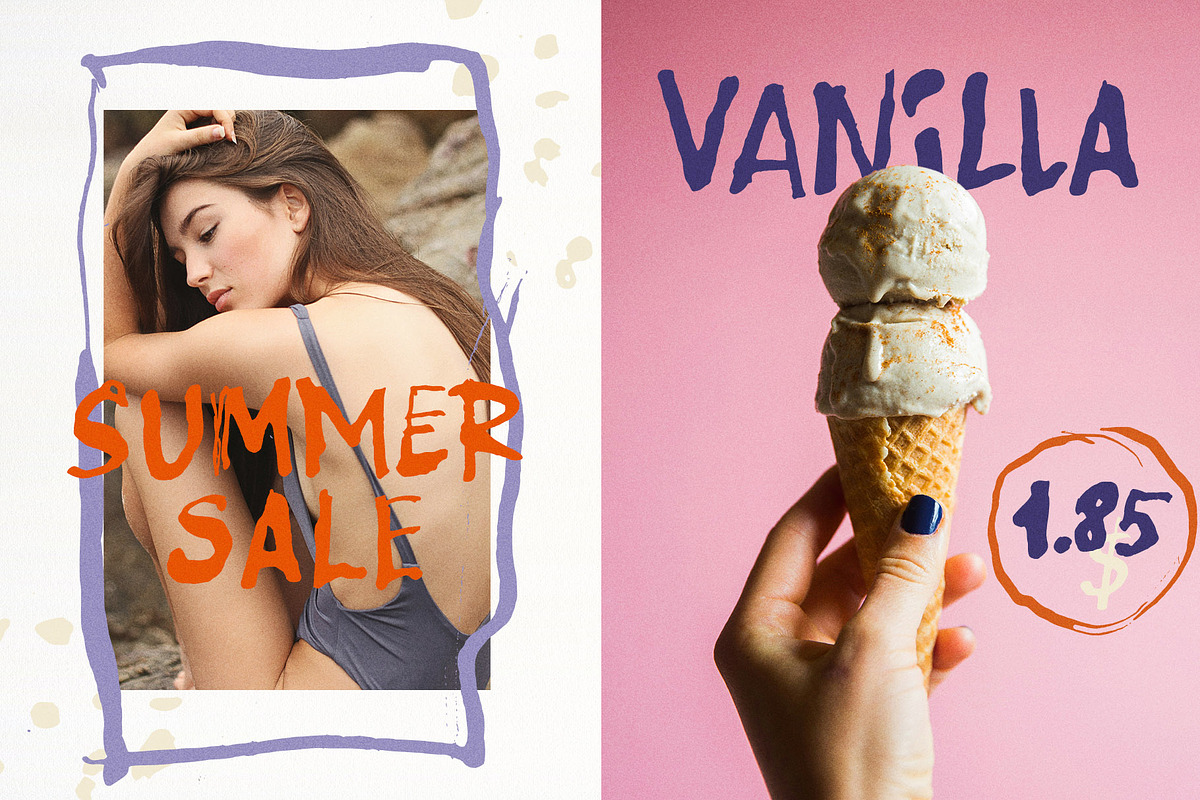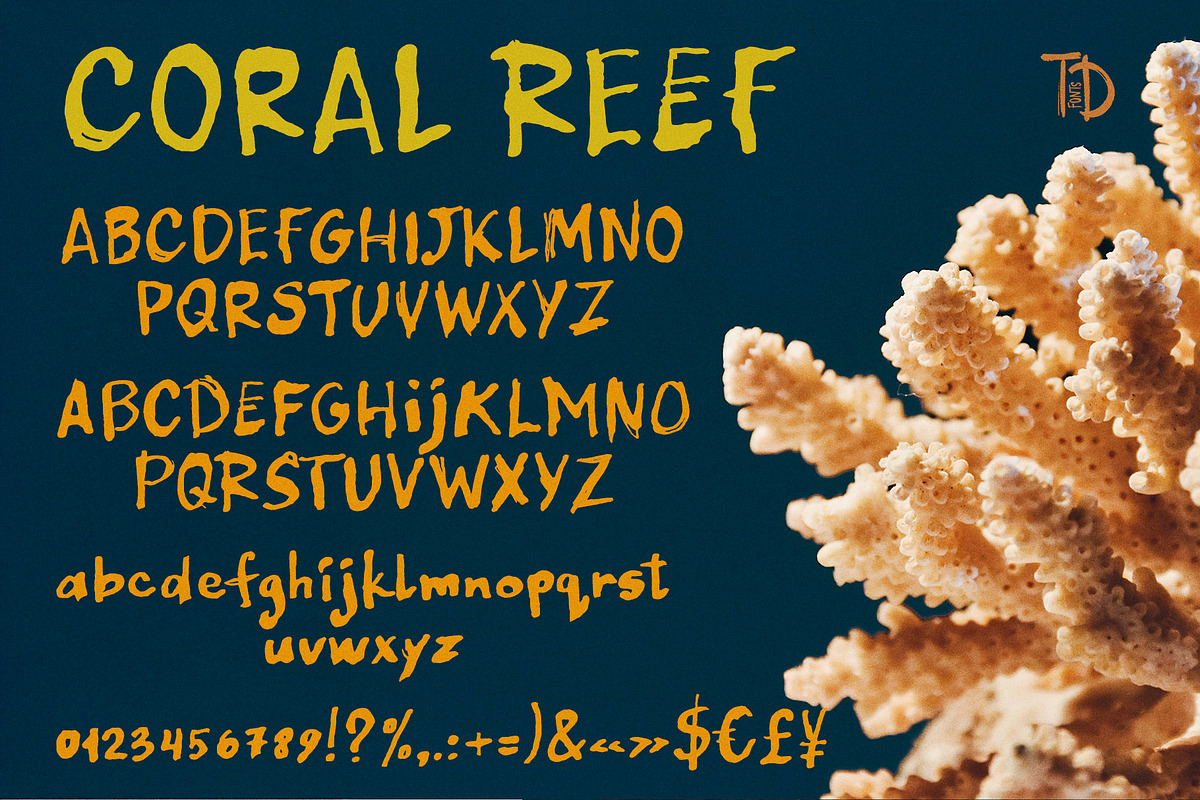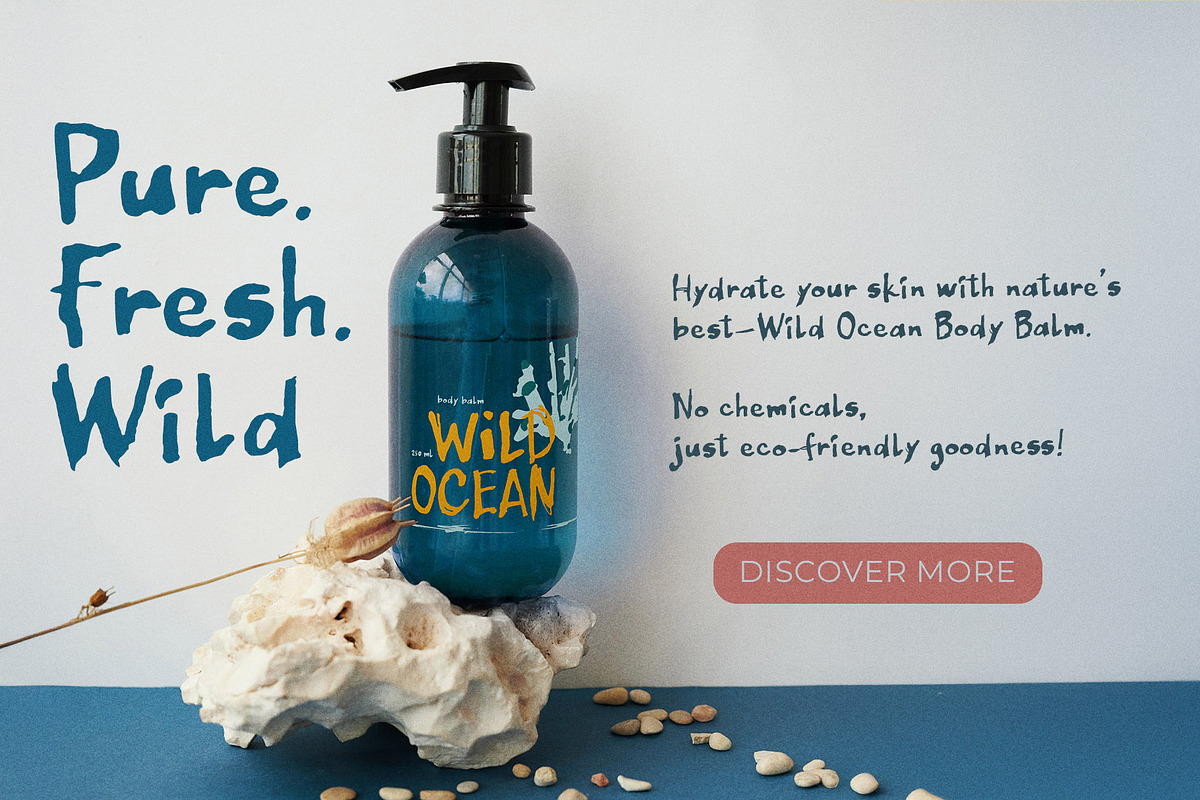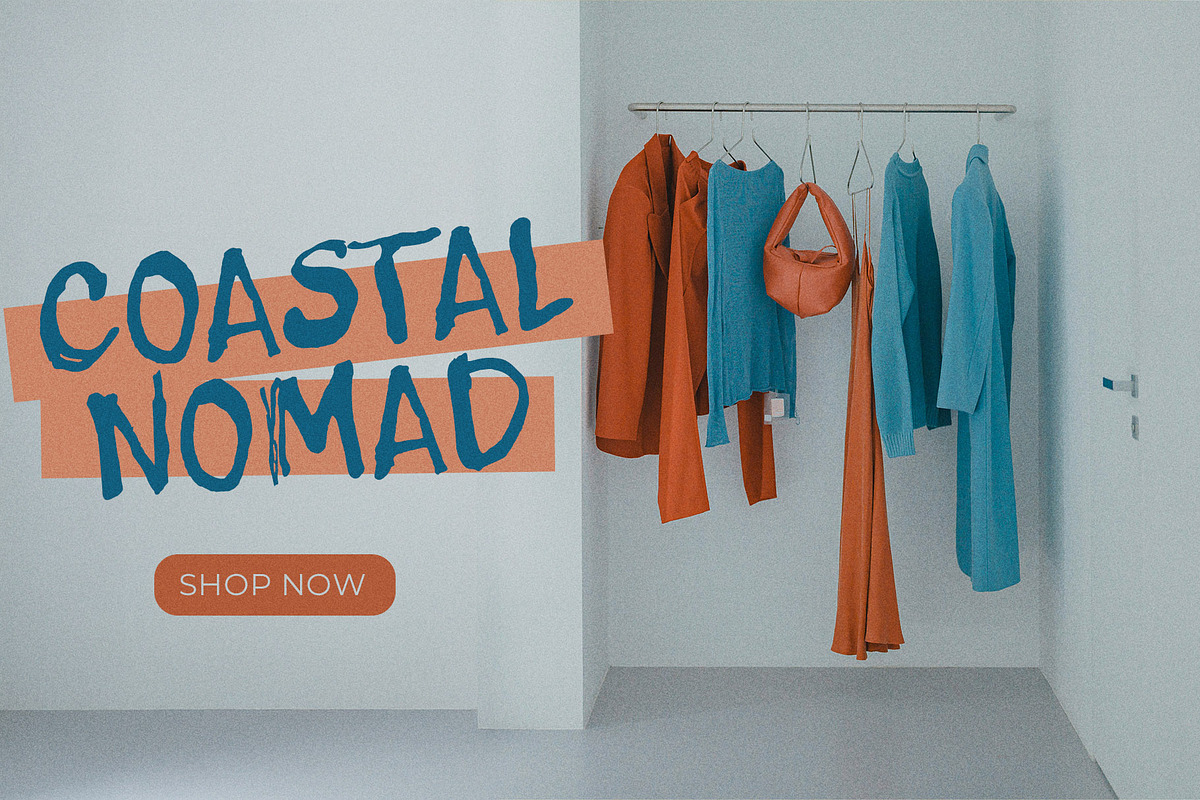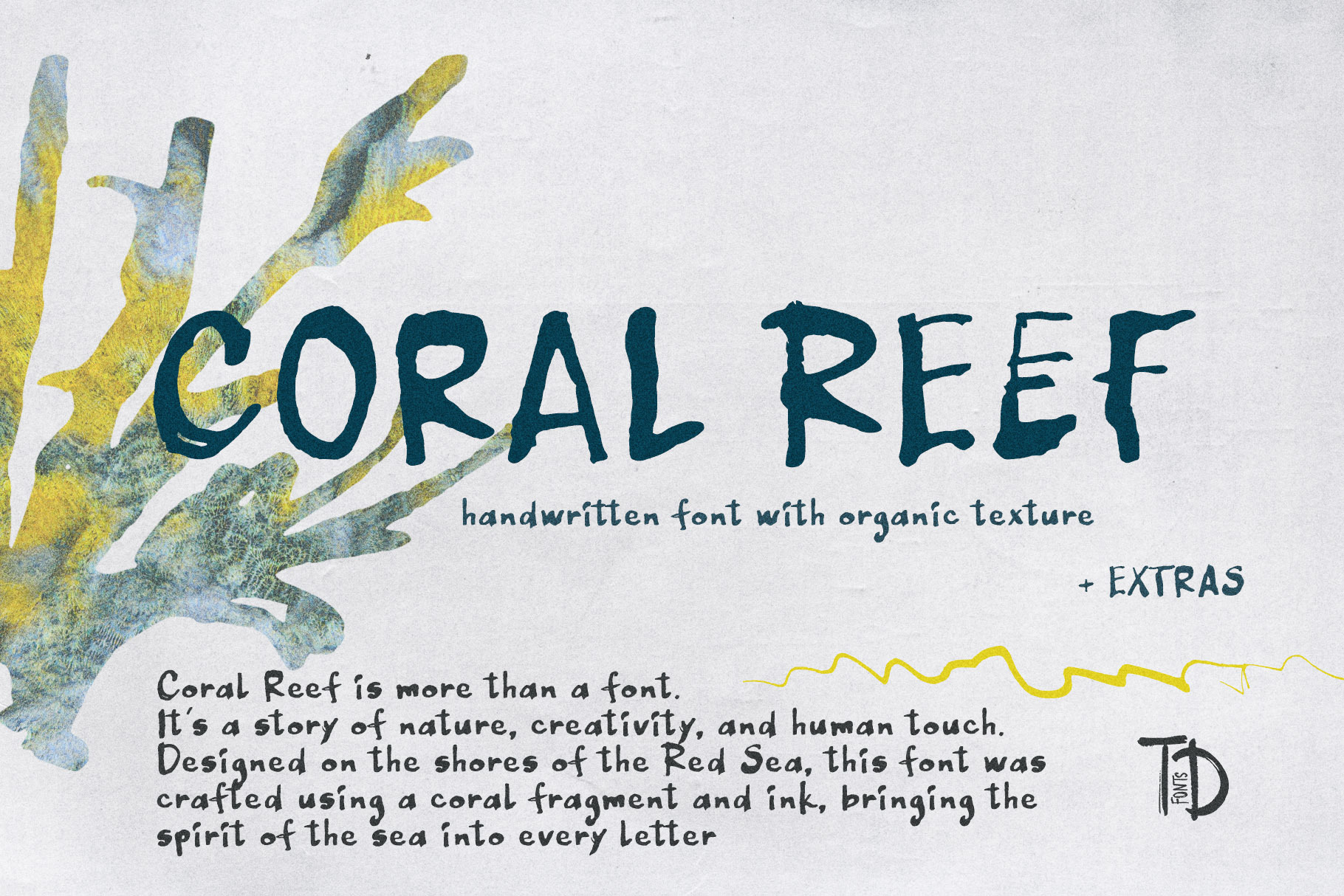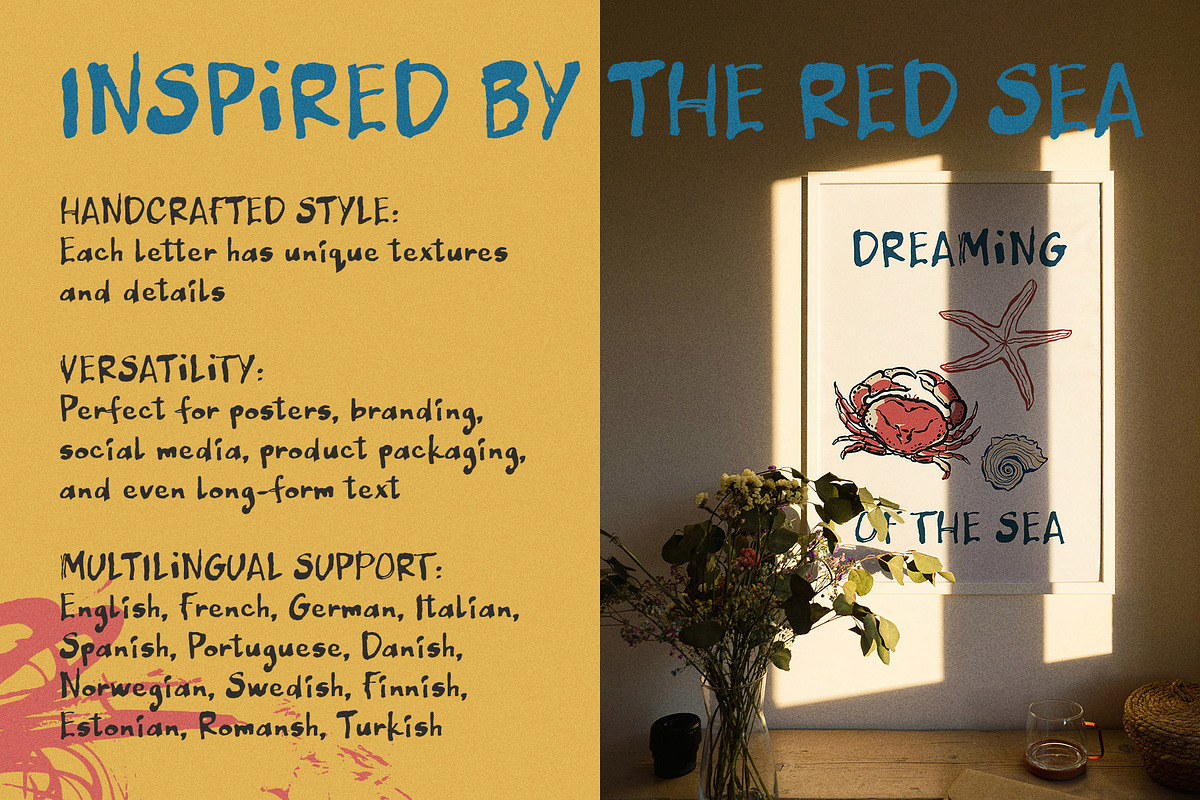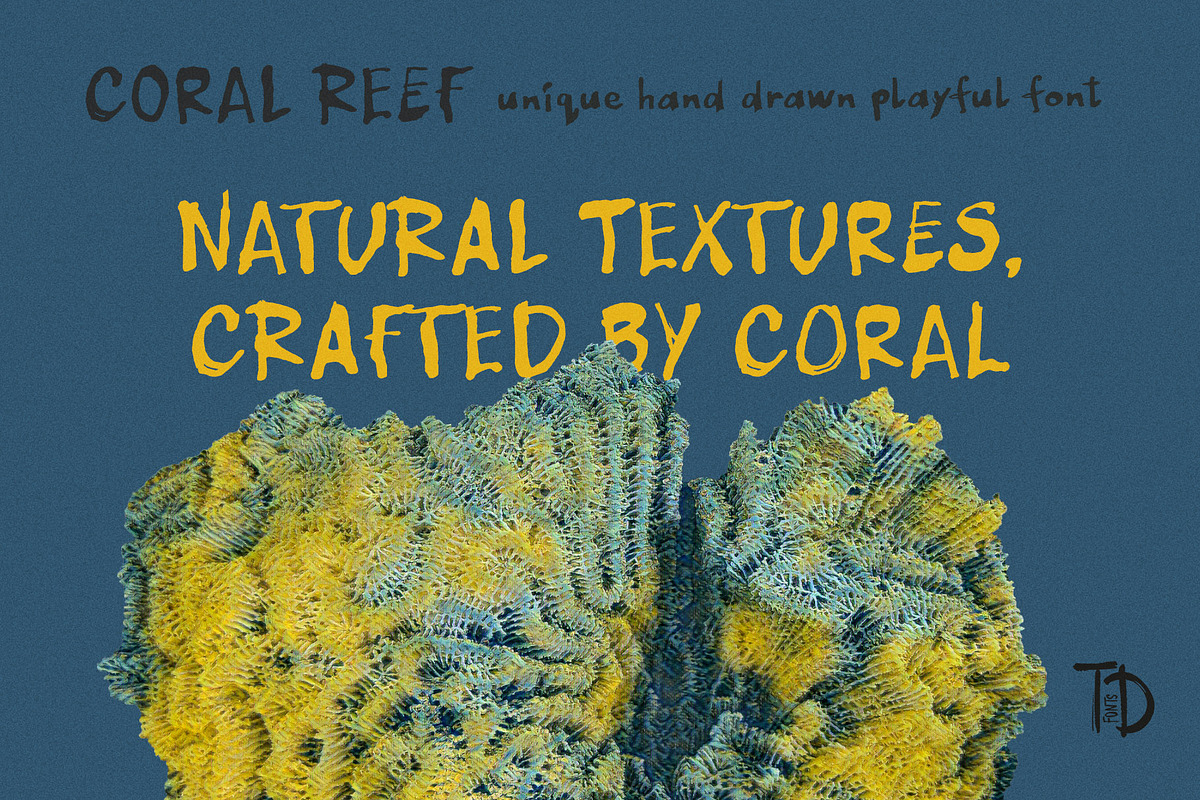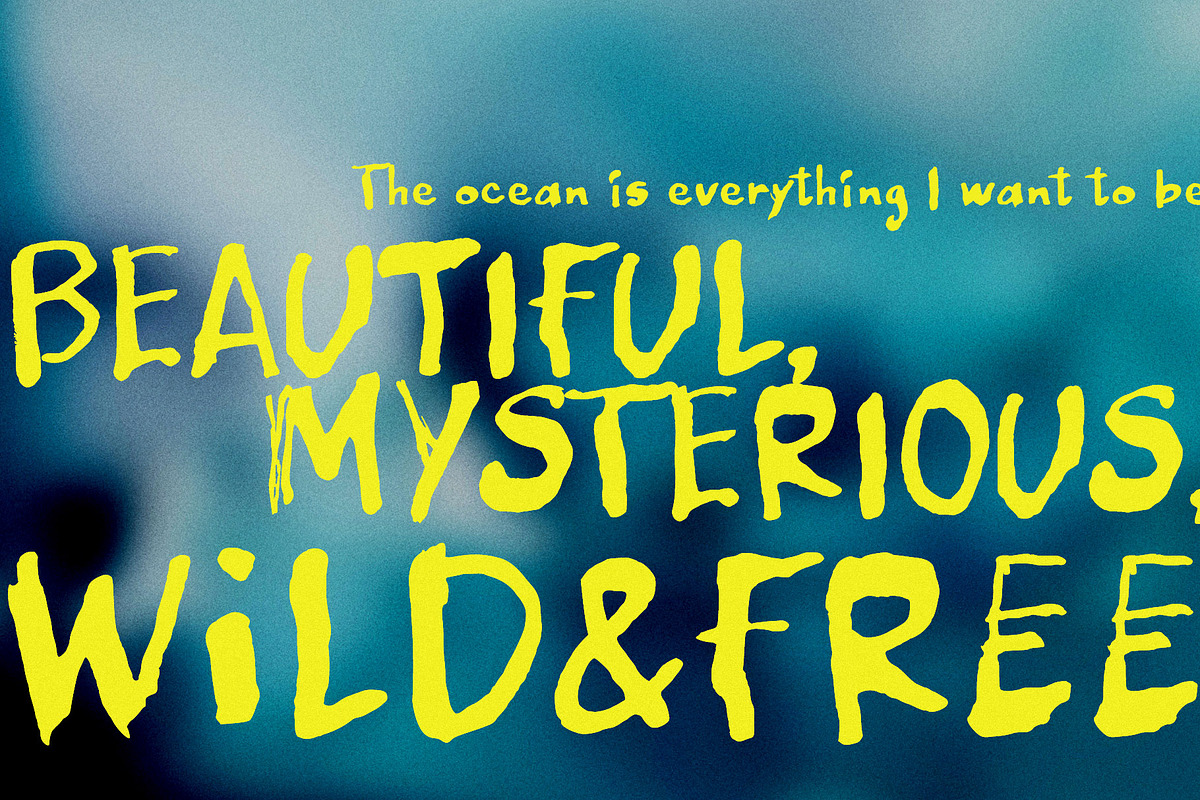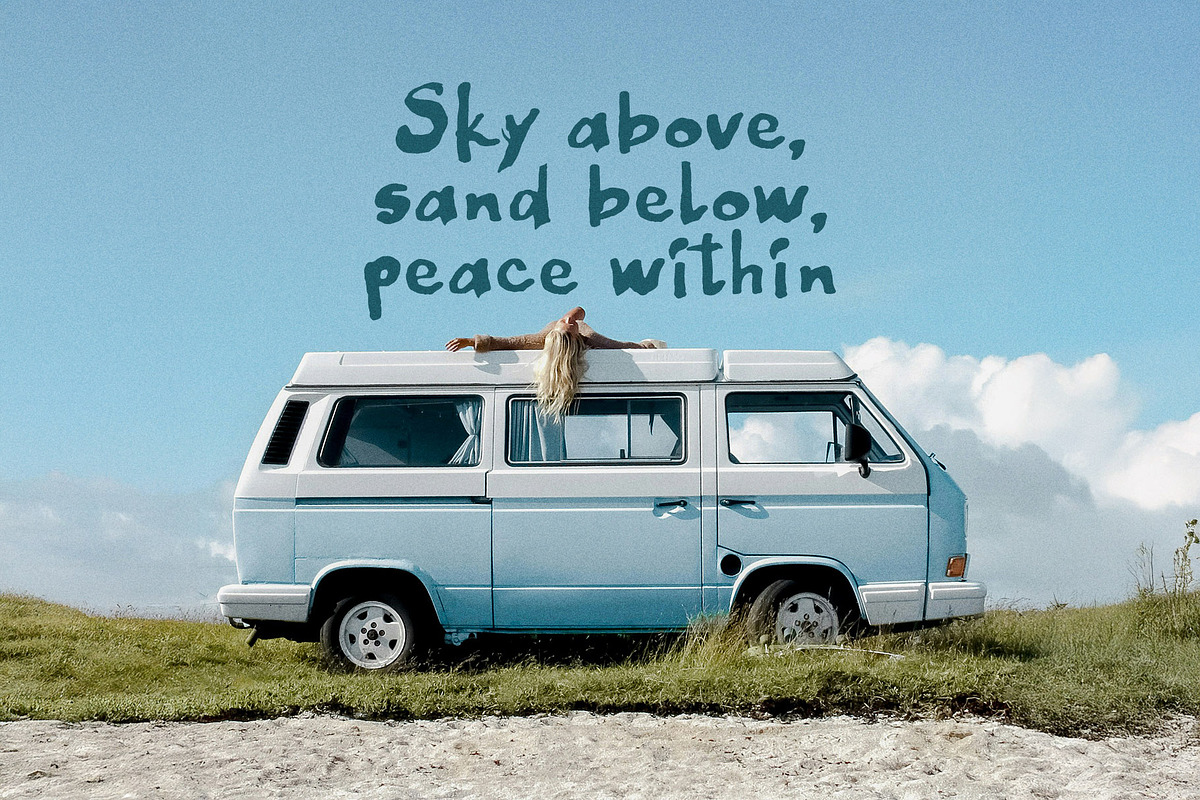
Coral Reef raw ink handwritten font
Coral Reef – Ink Handwriting Font with Organic, Textured Feel | Perfect for Quirky Branding & Creative Design
Coral Reef is a handwriting font created the way no other font has been — with a fragment of real coral found on the shores of the Red Sea in Sharm El-Sheikh, Egypt. Every letter preserves the raw beauty of the ocean: subtle scratches, rough porous edges, and the natural irregular texture that only a coral fragment can leave on paper. This is not a simulated effect — it is the direct imprint of the sea, vectorized and preserved in every character.
The letterforms are bold, wide, and confidently upright — a handcrafted display print font with a powerful visual presence. Strokes have near-zero contrast, consistent in weight but endlessly varied in texture, the way nature always is. The coral surface creates a signature micro-scratch quality across every edge: not ink feathering, not brush bristle, but something entirely its own — porous, organic, and unmistakably alive. The font works beautifully in all-caps headlines for maximum impact and in mixed-case settings for warmth and readability. Unusually for a textured display font, Coral Reef is versatile enough for long-form text as well.
This typeface embodies the essence of nature, adventure, and craftsmanship. It is the right choice whenever a design needs to feel rooted in something real — not constructed, not polished, but grown.
Nature-inspired branding, eco products & boho brand identity
Graphic design & web design with organic aesthetics
Product packaging, labels & artisan goods
Posters, prints & editorial layouts
Social media graphics & website headers
Book covers & storytelling projects
Film and music promotion with an artistic edge
Small businesses that want a distinct, handmade look
Font features:
Written with a real coral fragment on the shores of the Red Sea — a genuinely unique origin story
Bold, wide, upright display letterforms with a confident handcrafted presence
Coral scratch texture — porous, micro-scratched edges unlike any brush, pen, or ink font
Near-zero stroke contrast with deep organic variation across every letter
Works in all-caps headlines and mixed-case settings
Unusually versatile for a textured display font — readable in long-form text
Each letter carries unique handcrafted textures and details — no two feel identical
40 hand-drawn scribble illustrations for layout decoration
The aesthetic: Coral Reef feels like the ocean made visible. It carries the memory of a specific place — a warm shore, a fragment of reef, a moment of noticing something beautiful — and transfers that memory directly into your design. It is ideal for brands and projects rooted in nature, adventure, sustainability, and authenticity: the kind of design that has a real story behind it, not just a style.